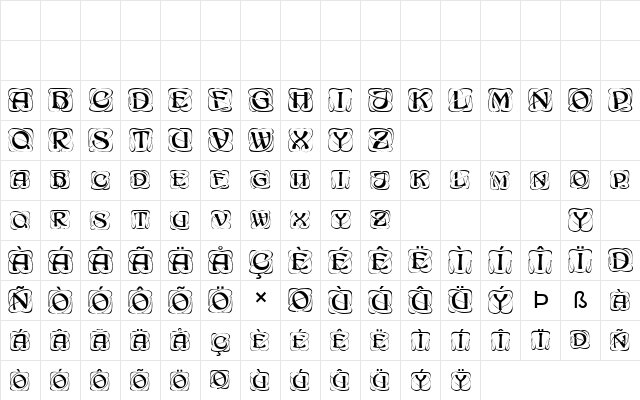
FZ BORDERS 11 Normal
Design Context for FZ BORDERS 11 Typeface
FZ BORDERS 11 is a composed and adaptable typeface that performs quietly and consistently across a wide range of design contexts.